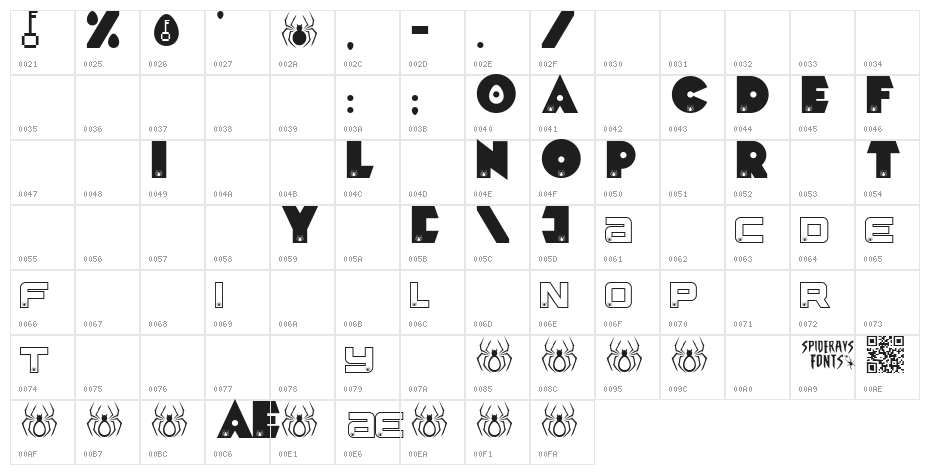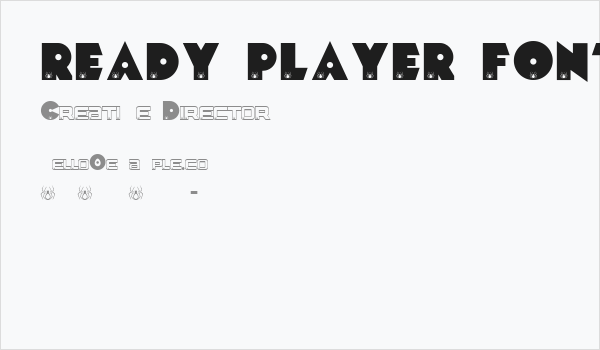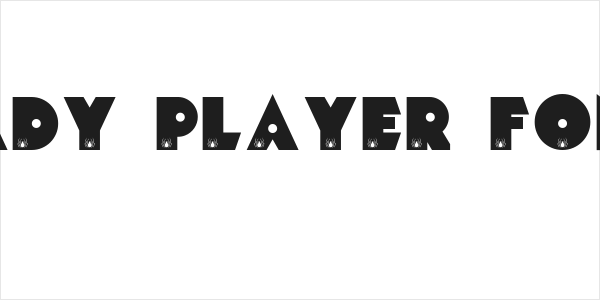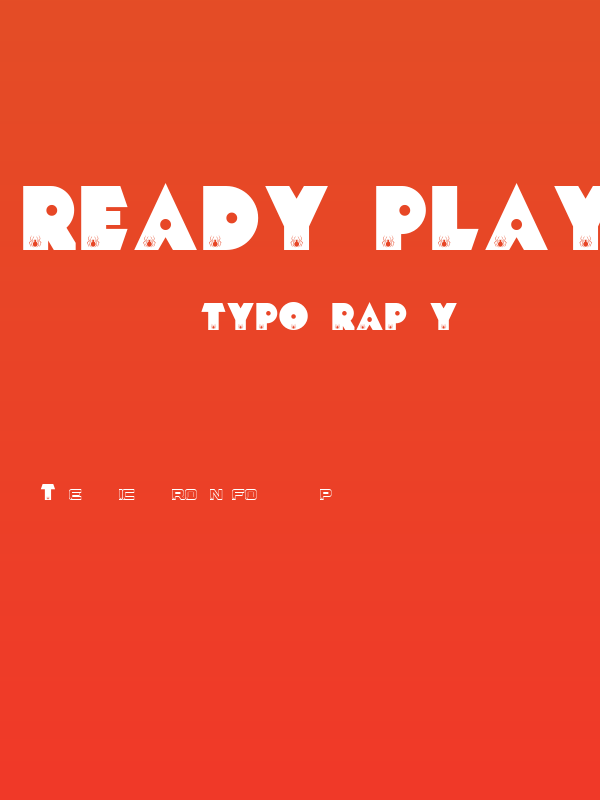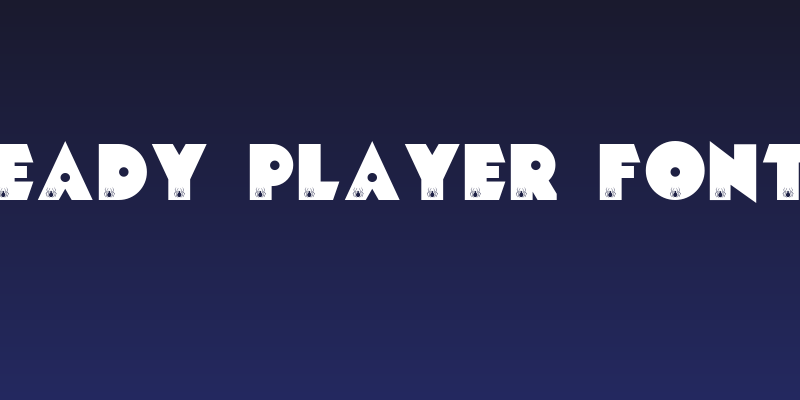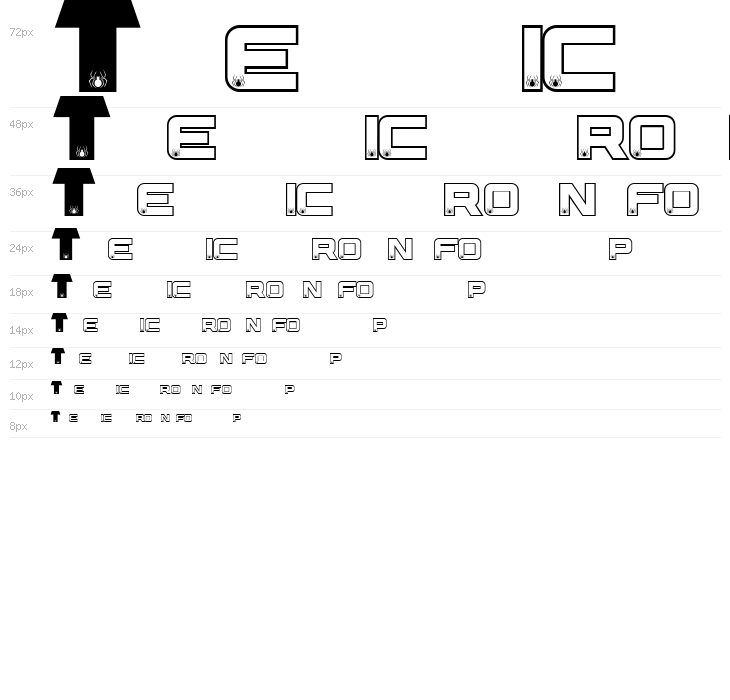
READY PLAYER FONTE Font
READY PLAYER FONTE Description
This font features a bold and geometric design with a distinct futuristic and playful aesthetic. Each character is crafted with sharp angles and a solid structure, often incorporating unique cutouts or patterns that add an element of surprise and creativity. The uppercase letters are particularly striking, with some characters appearing almost three-dimensional due to their boldness and angular cuts. The lowercase letters maintain the same stylistic elements but are slightly more compact. The numbers and special characters continue this theme, with some symbols resembling abstract shapes or objects, enhancing the font's decorative nature. This font is ideal for projects that require a modern and eye-catching typeface, such as video game titles, movie posters, or any design work that aims to capture attention with a futuristic flair.
READY PLAYER FONTE
| Overall Style | Futuristic, Playful |
| Proposed Projects | Ideal for video game titles, movie posters, and any design work requiring a modern, eye-catching typeface. |